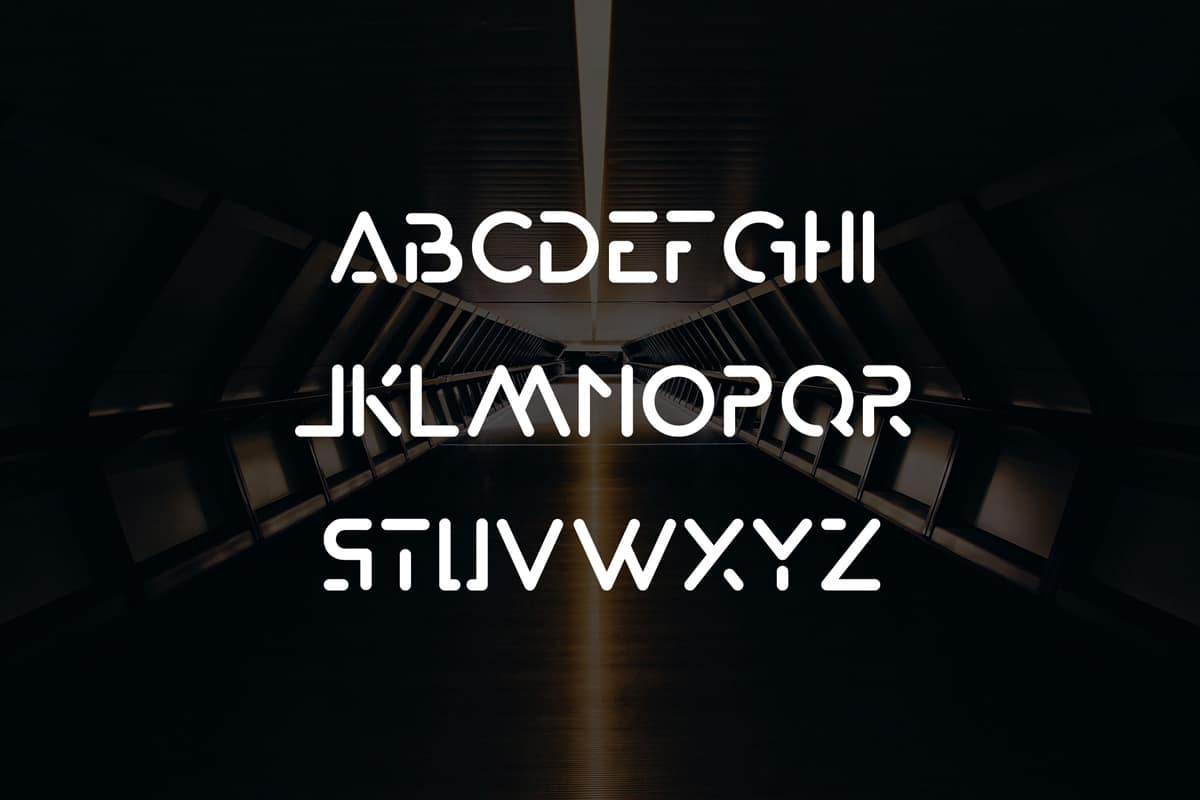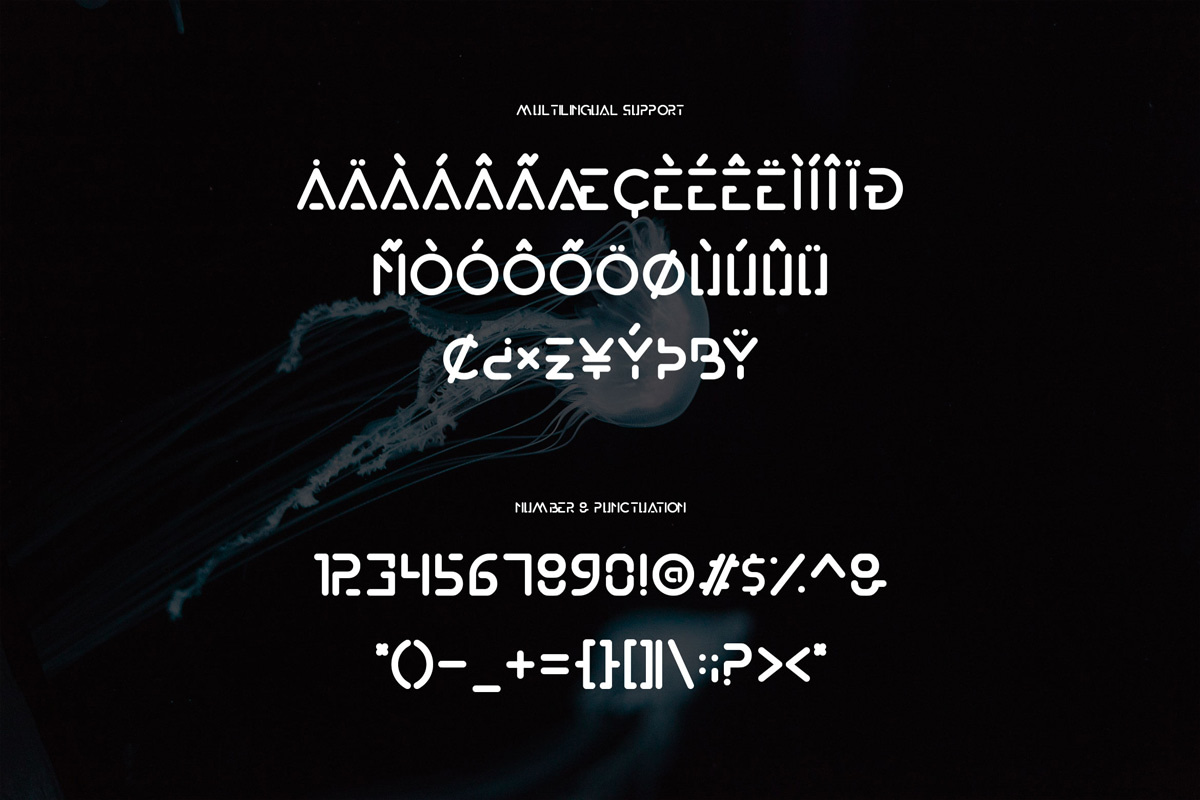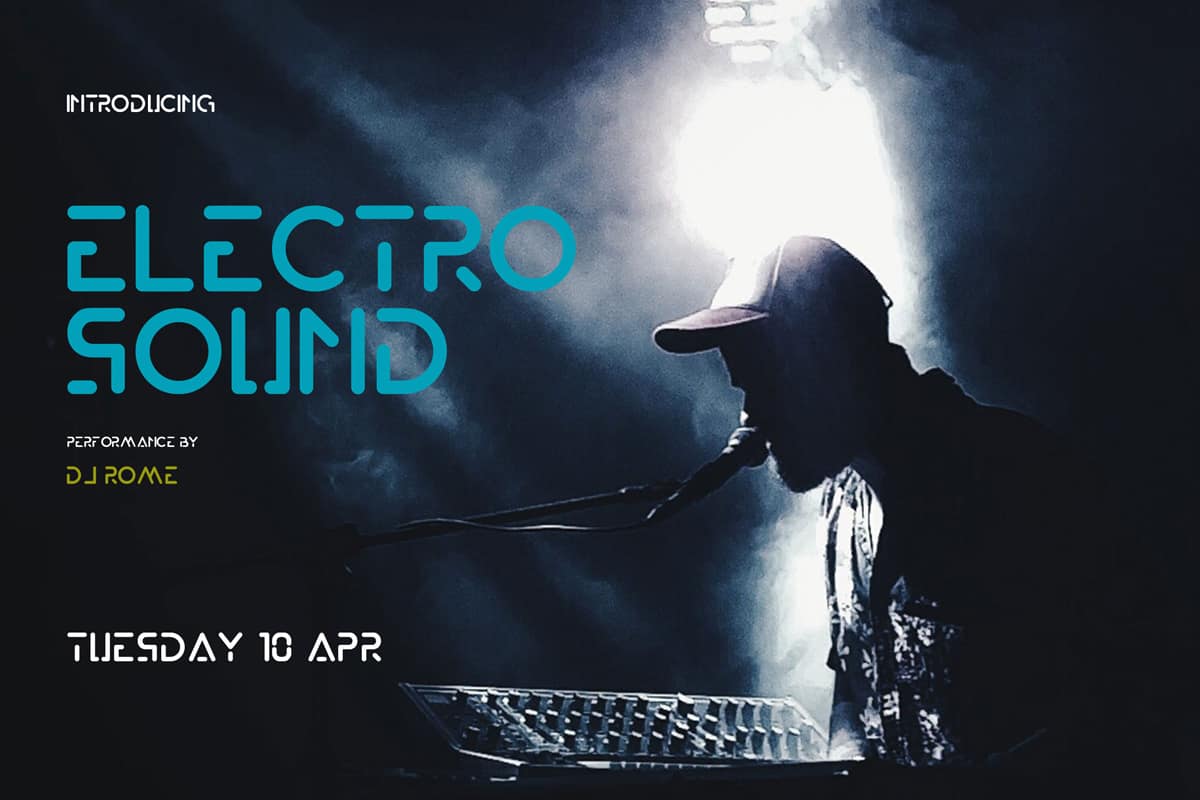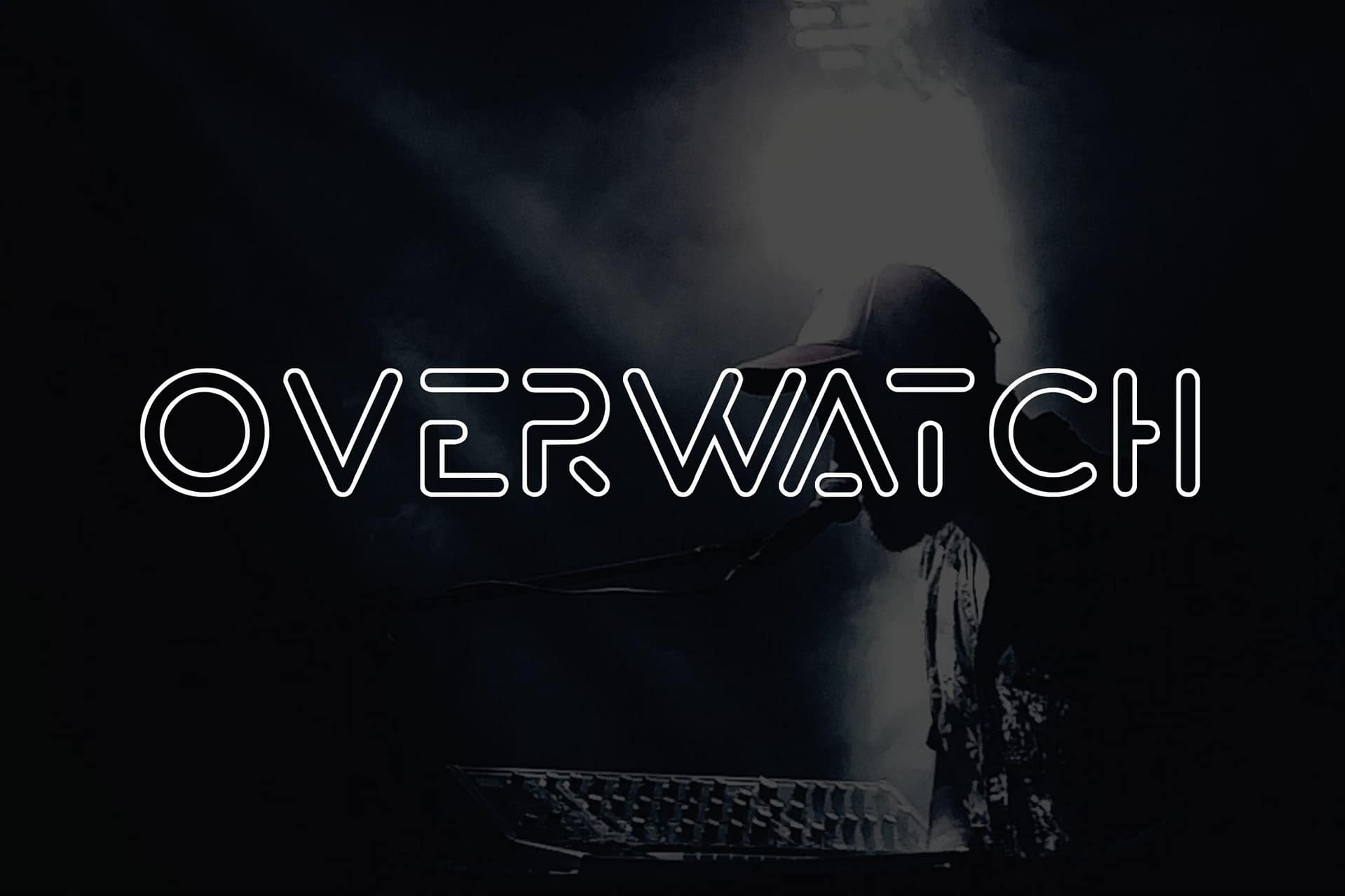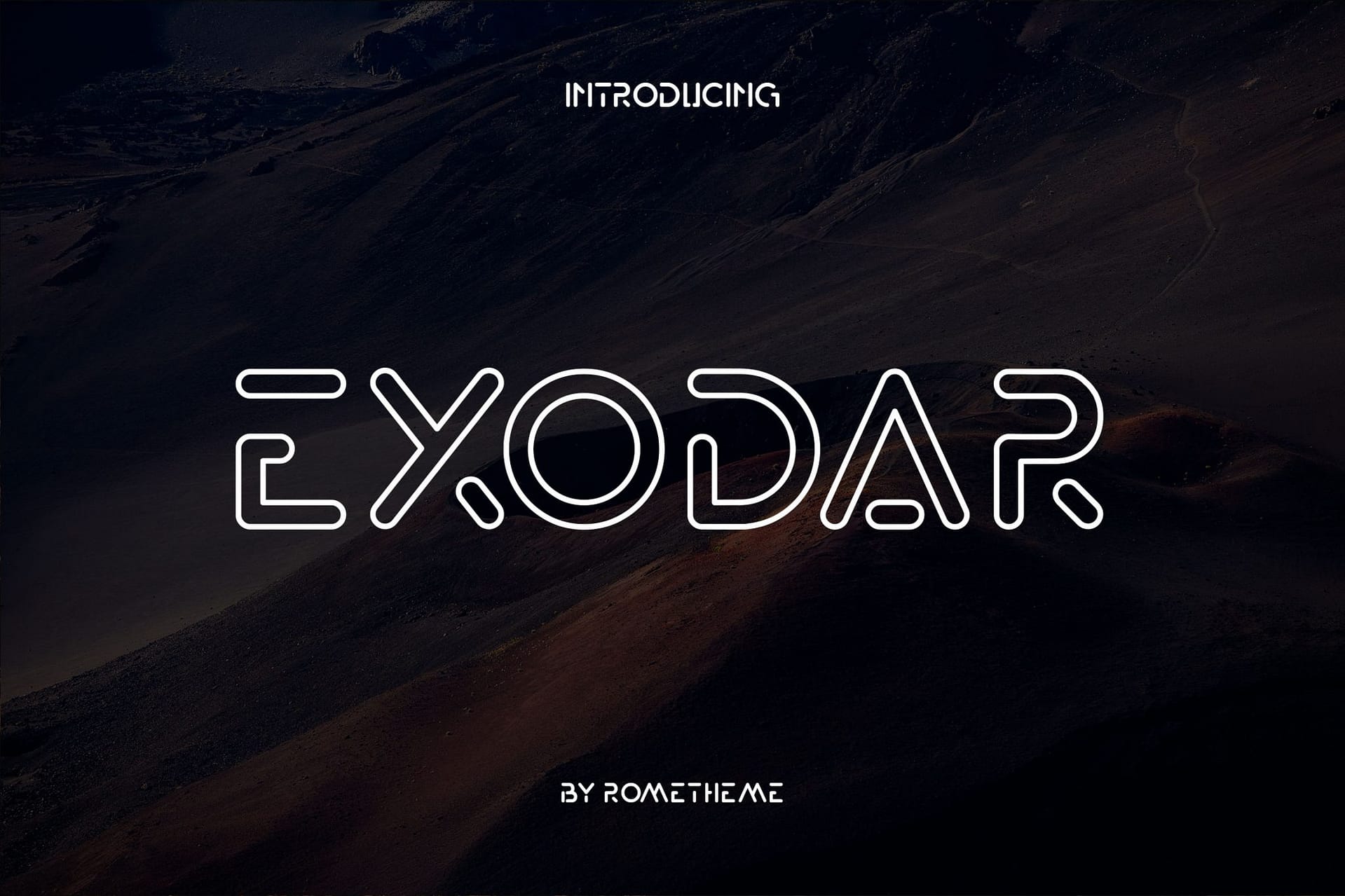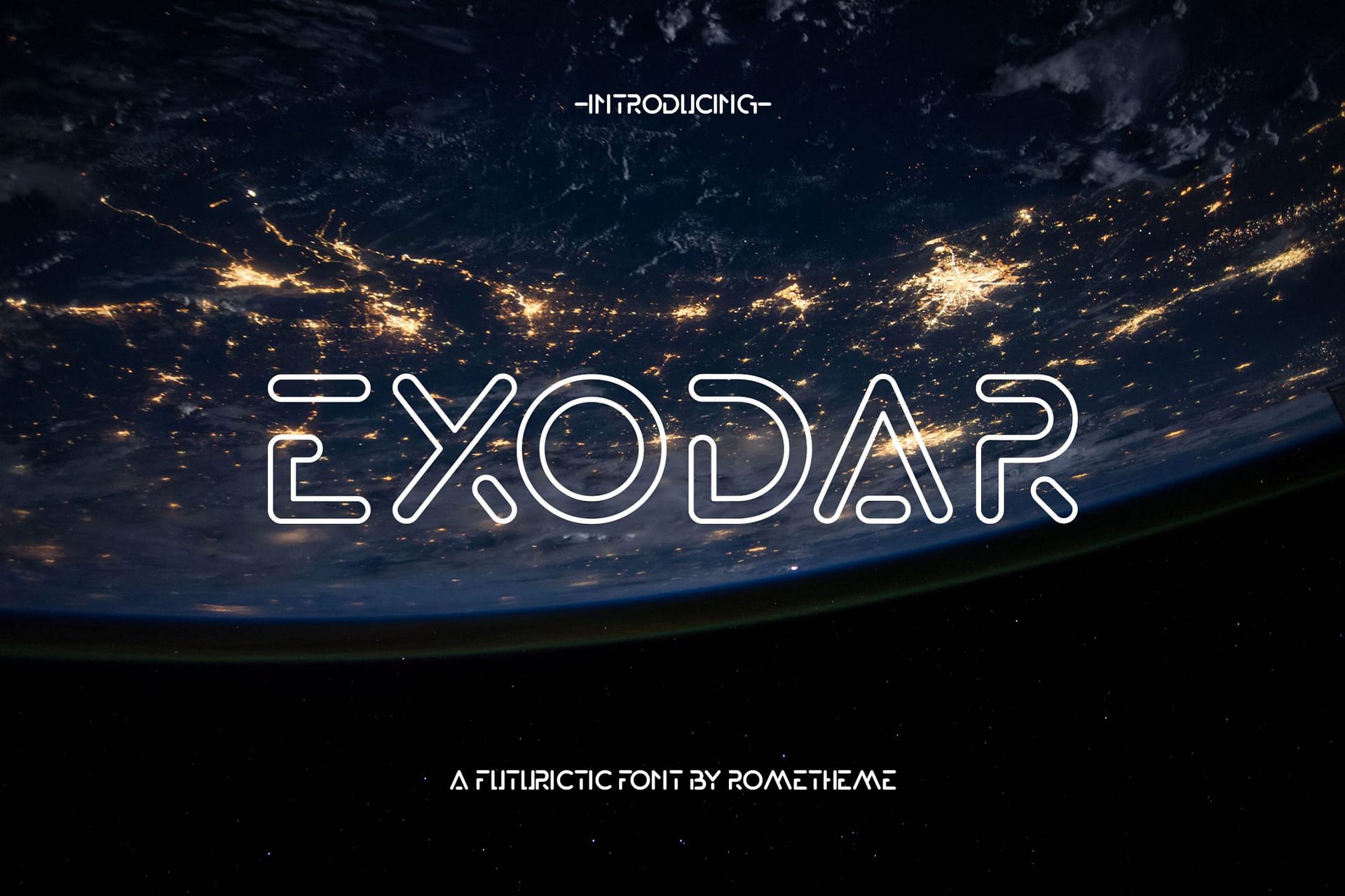
EXODAR is a modern futuristic typeface with elegant in every single letter. This font looks modern, sci-fi, futuristic, future, readable, stylish, catchy and easy to use.
Exodar Font is the best choice for your professional design projects, including : logo, poster design, t-shirt, headline, flyer, cd cover album, quotes, business card, branding, magazines, social media, advertisements, product designs, or something that need modern or futuristic looks.
Exodar – Futuristic Font